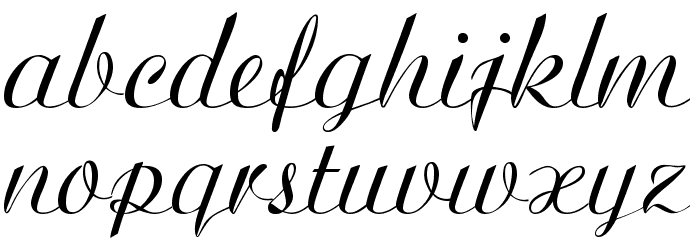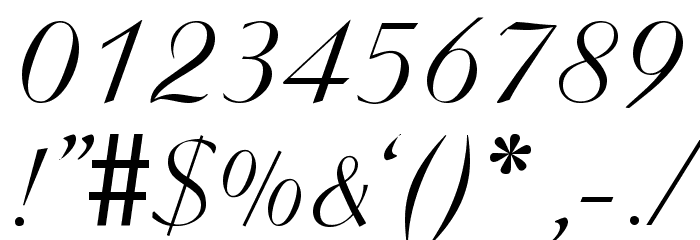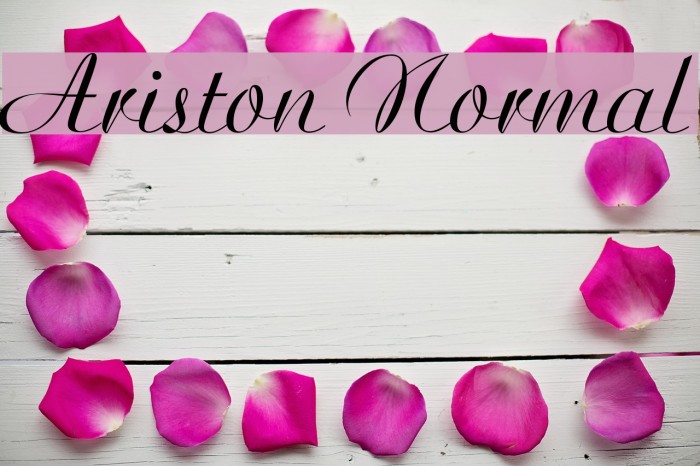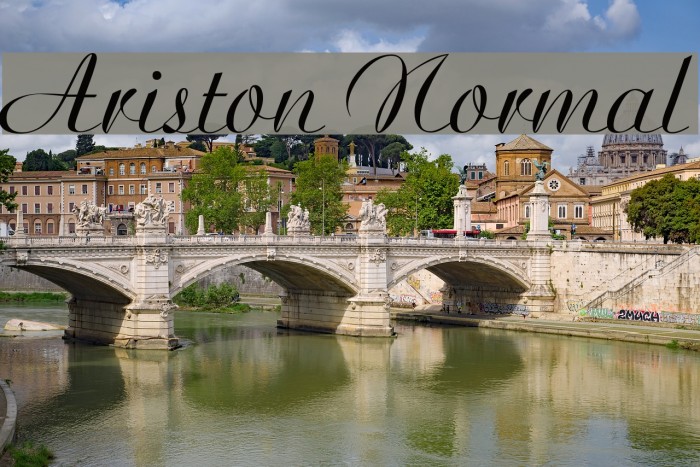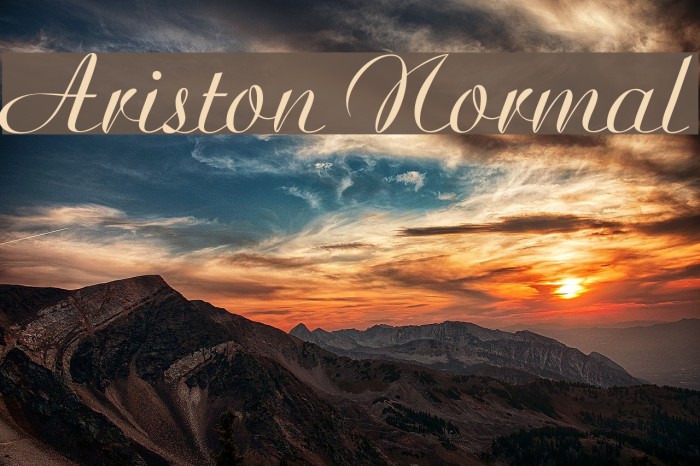
Ariston Normal Font
This elegant script font features flowing, cursive letterforms with a classic and sophisticated appearance. The uppercase letters are characterized by their sweeping curves and intricate loops, while the lowercase letters maintain a smooth and connected style. The numerals are designed with a similar flair, offering a cohesive look across all characters. The special characters are crafted with the same attention to detail, ensuring a harmonious overall design. This font exudes a sense of refinement and grace, making it suitable for formal and decorative applications.
An elegant script font with flowing, cursive letterforms and a classic appearance.
- Proposed Projects: Ideal for wedding invitations, elegant branding, formal event programs, and decorative signage.
- Category: Script
- Overall Style: Classic
- Use Case: Logos, Invitations, Decorative text